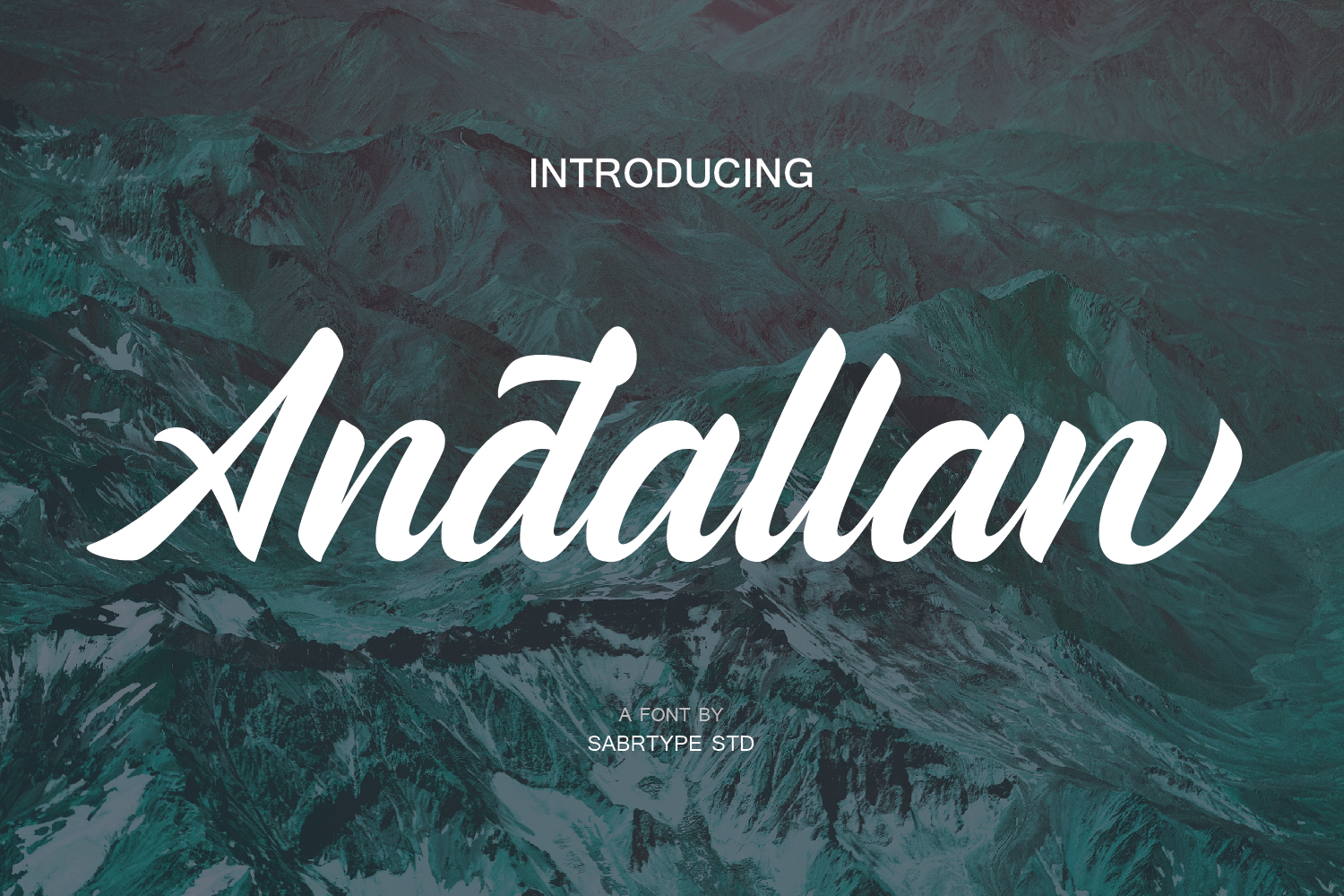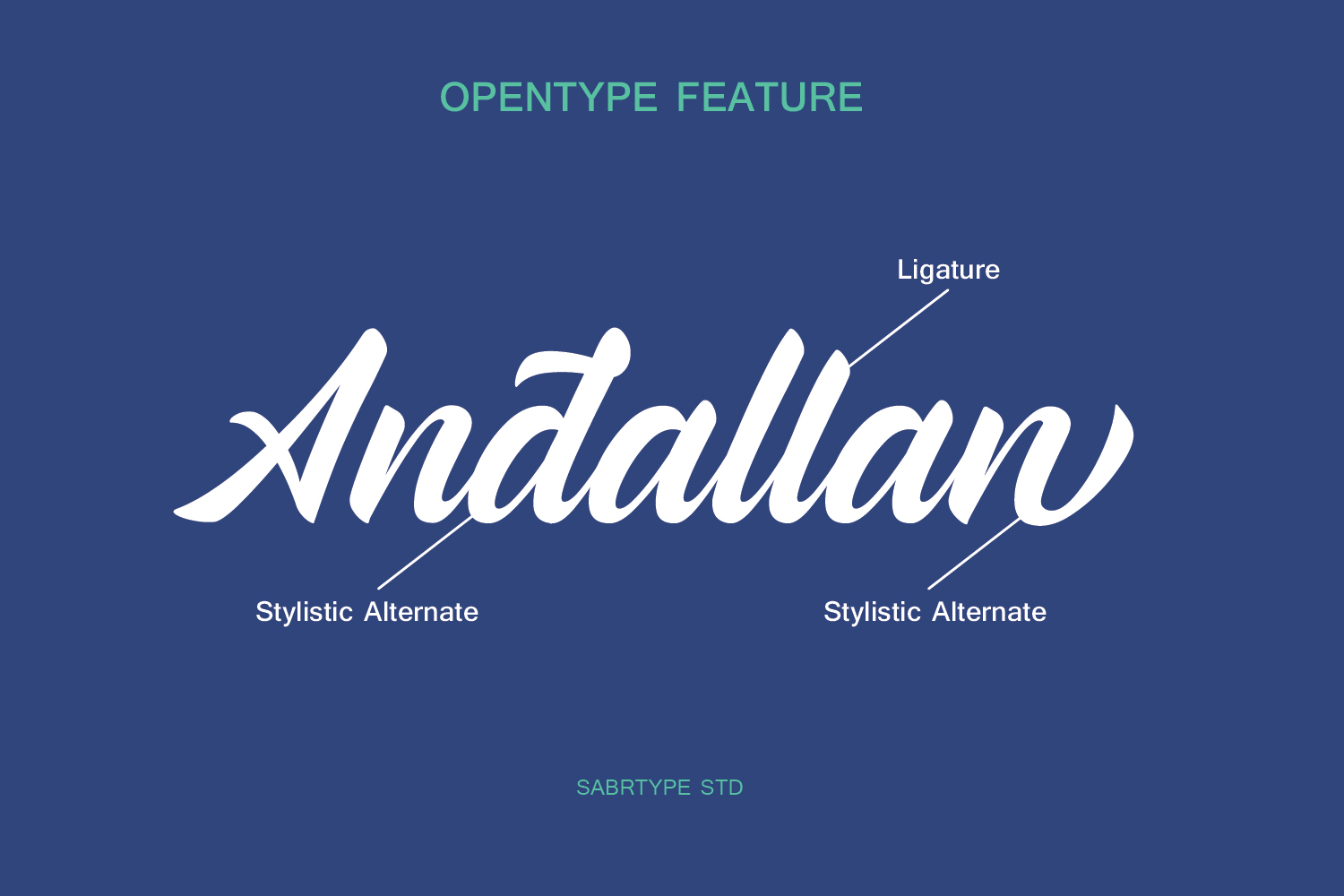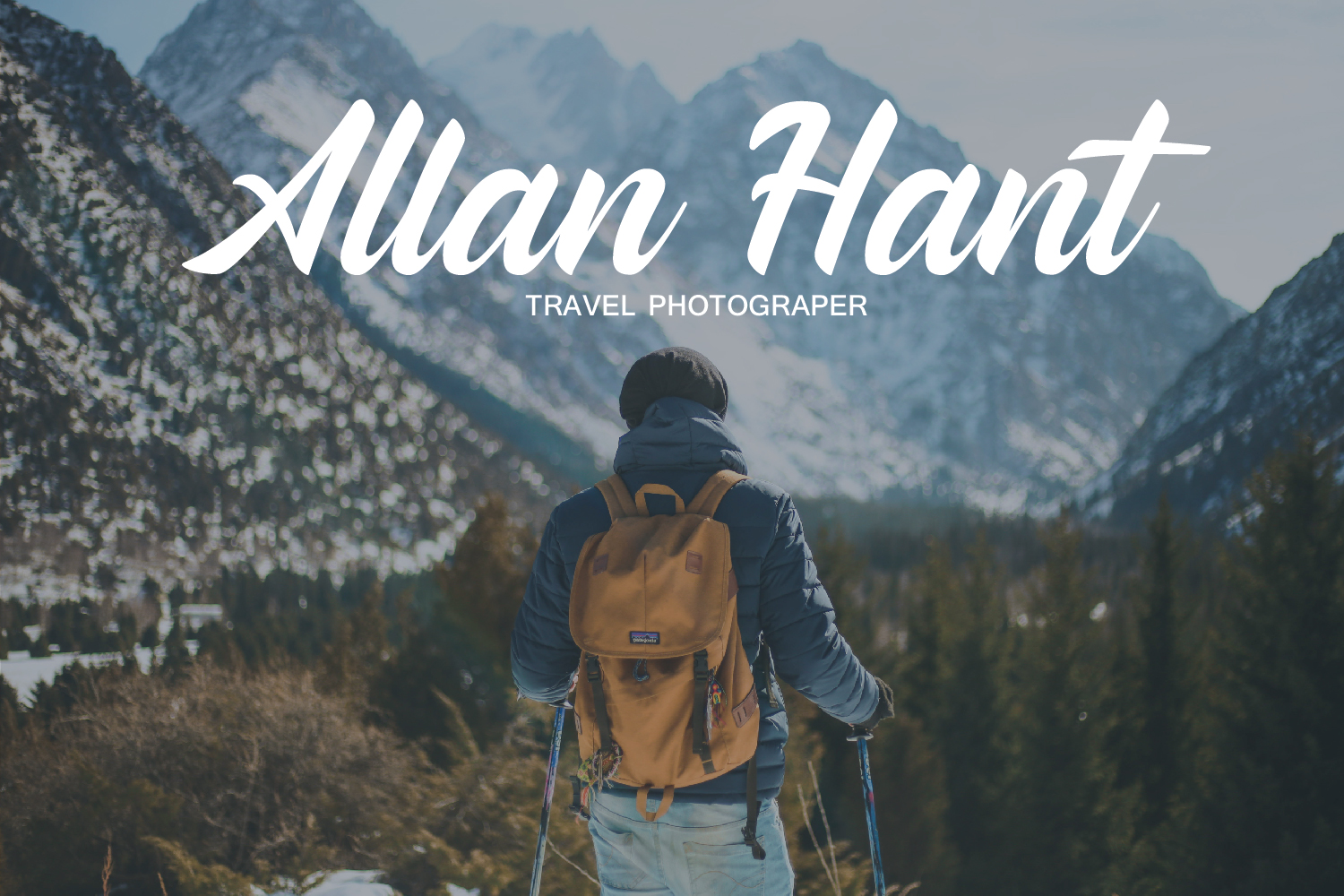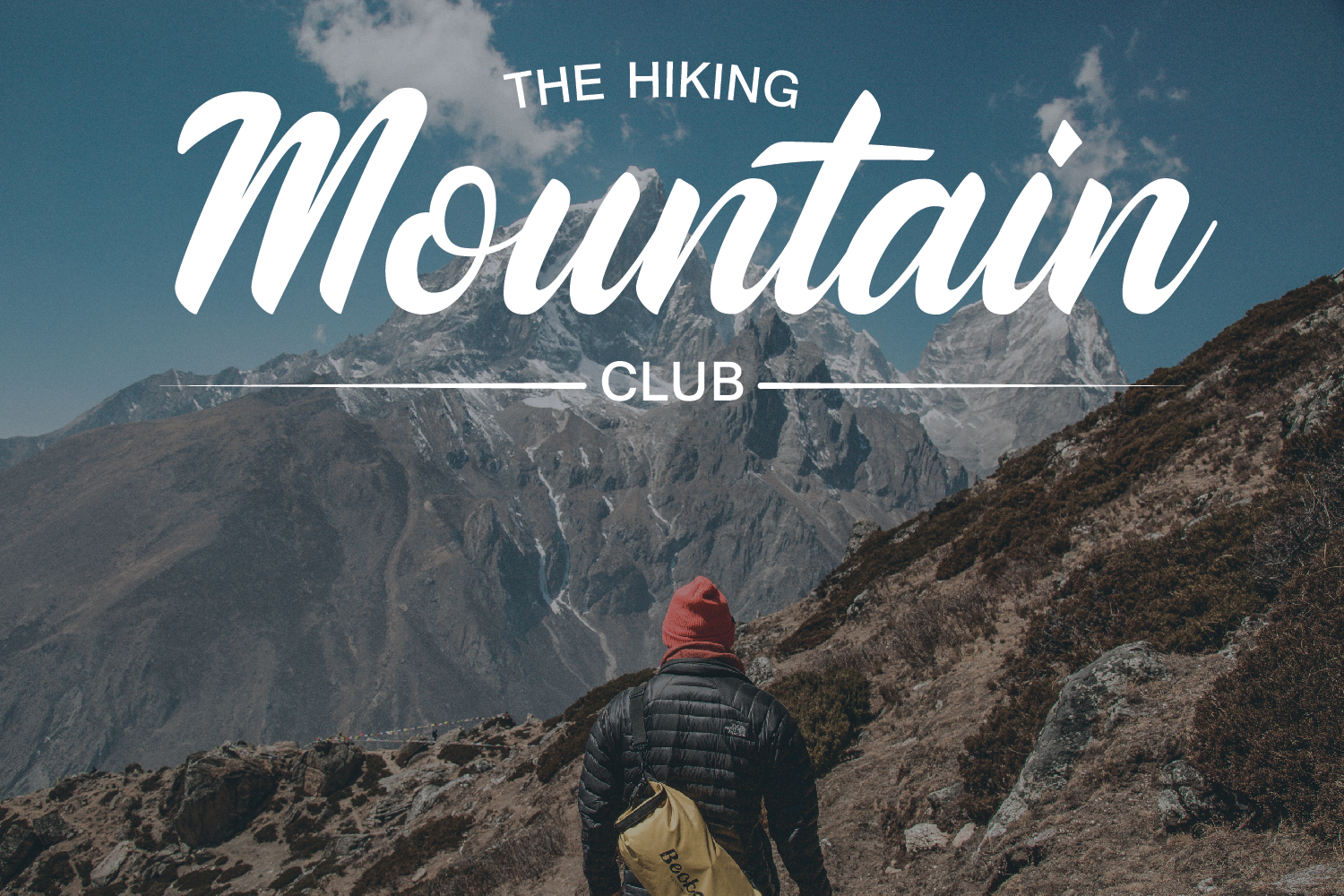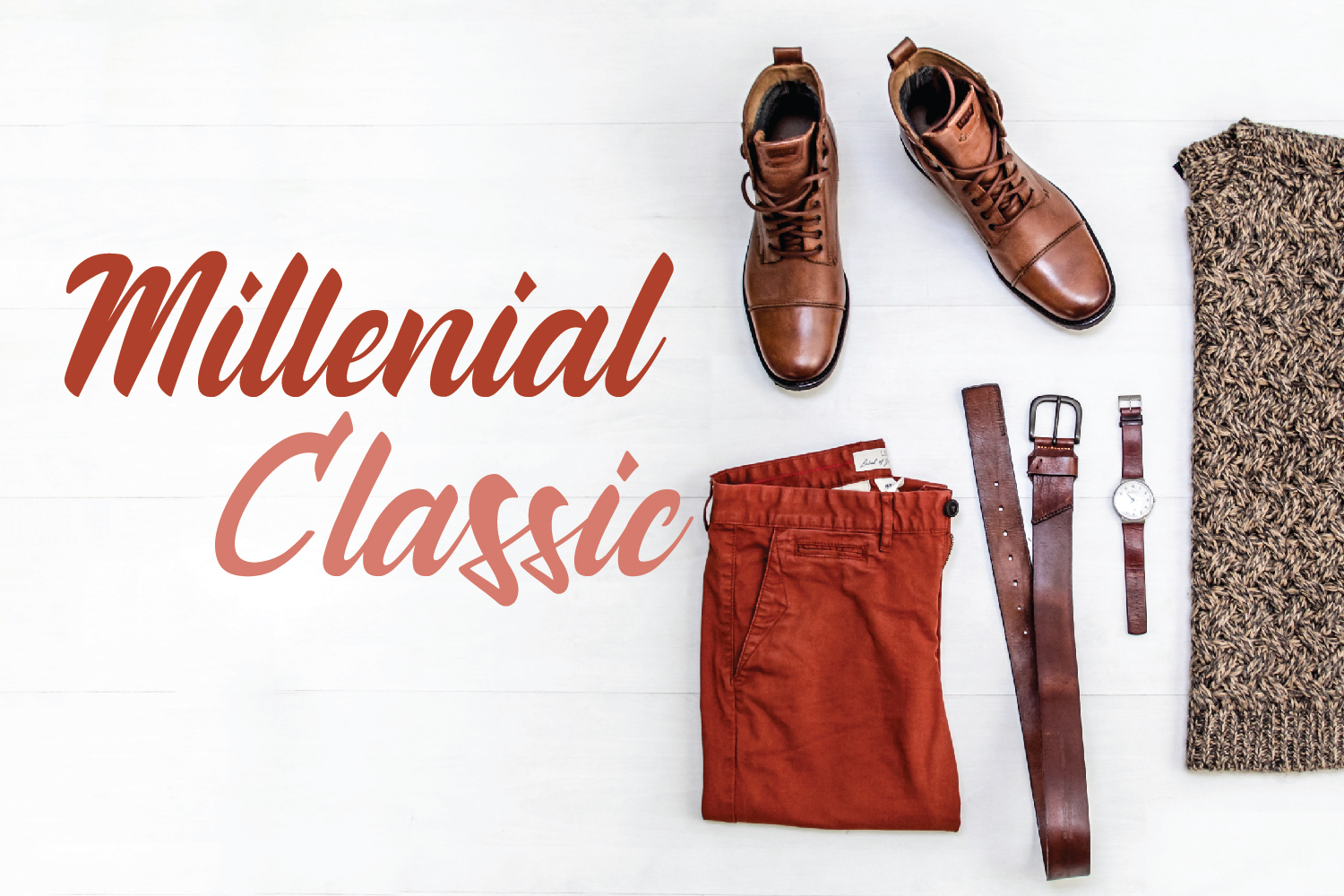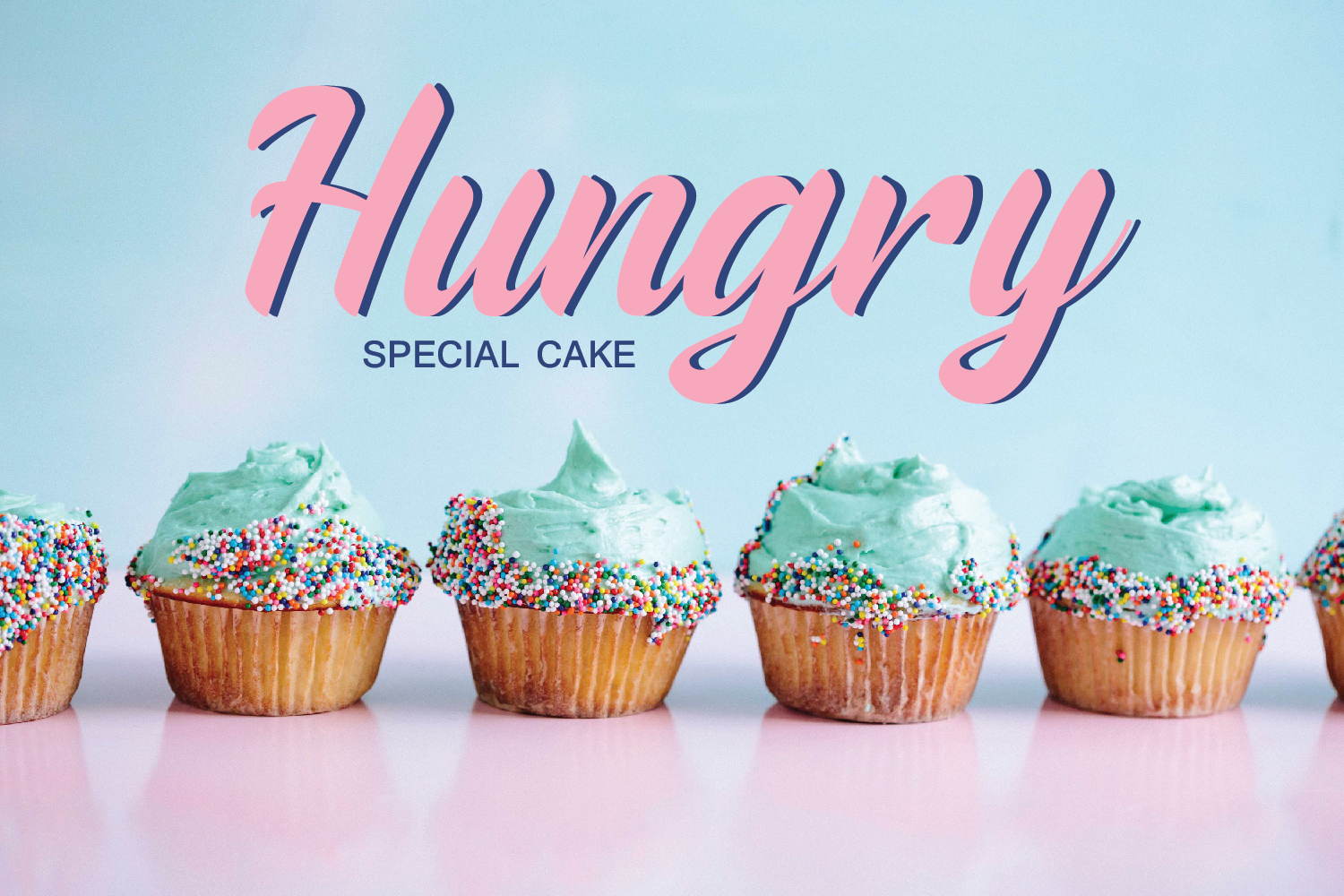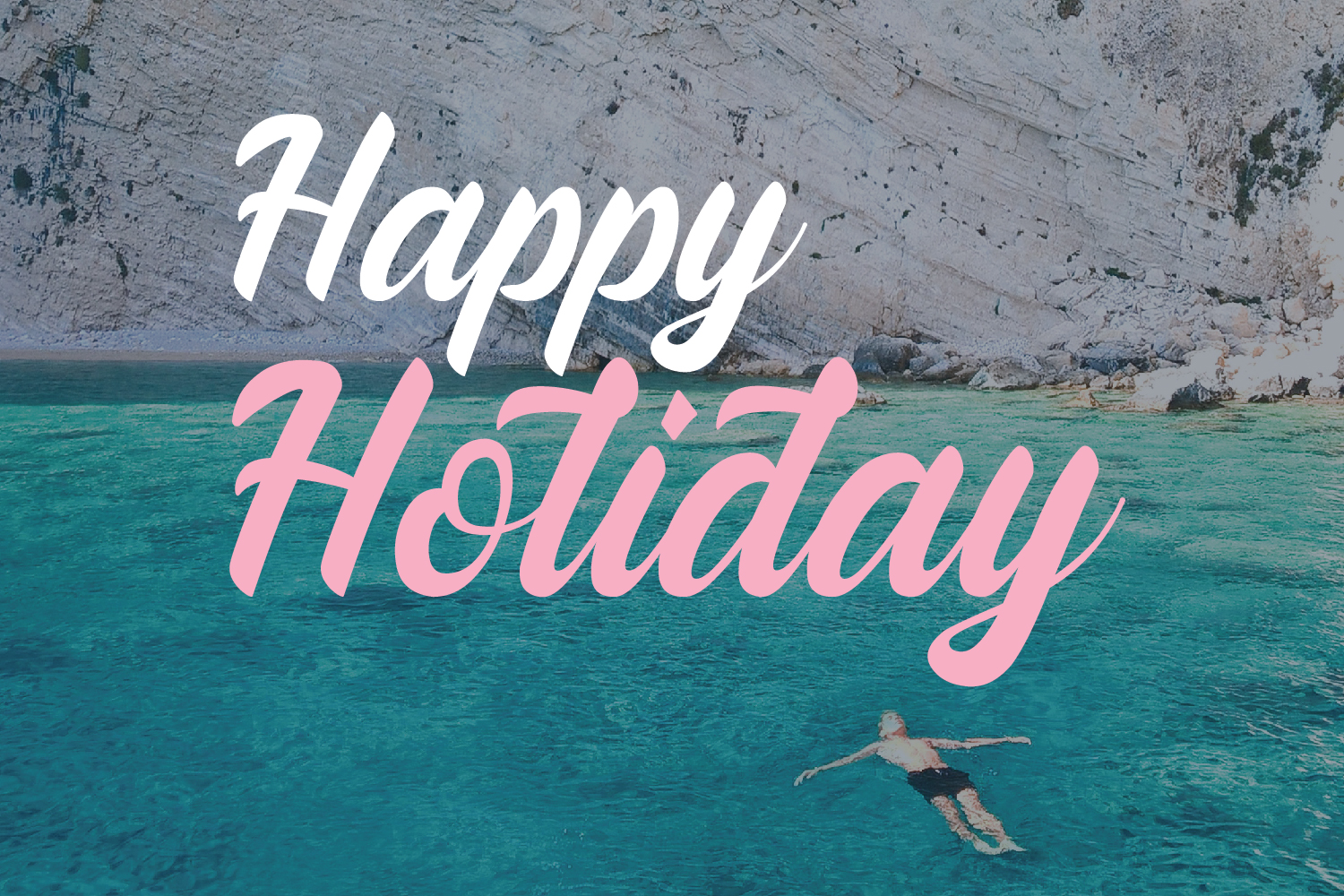
Andallan Font
About Andallan Font
Andallan is a font with stylish handlettered style and a smooth, clean vibe. This font is modern with a slight nod to vintage style, and looks great in displays.